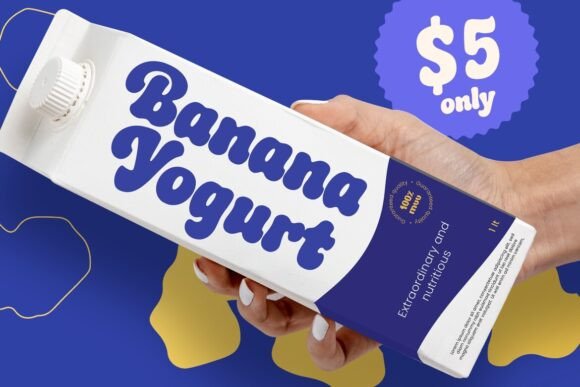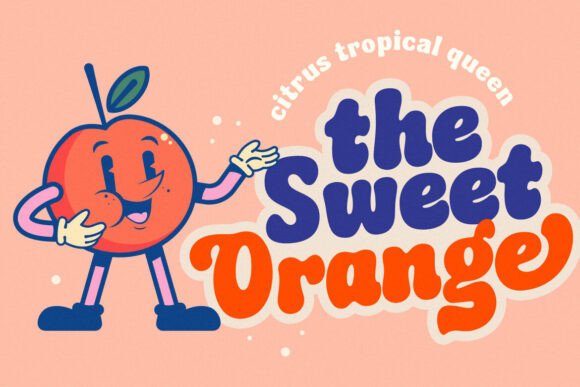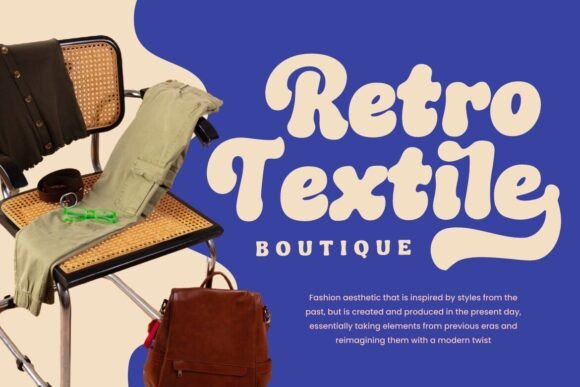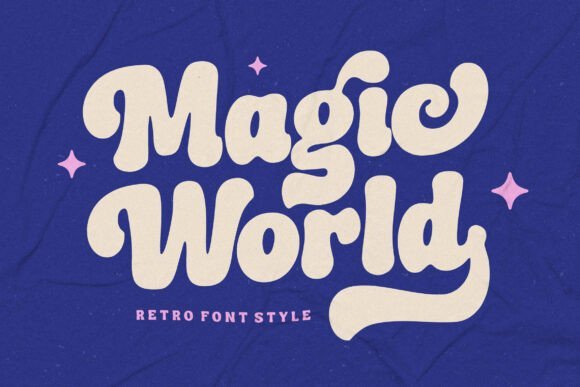
Introduction to Magic World Font
Magic World Font is a bold retro script font style with rounded touch.
Equipped with all complete characters ranging from uppercase letters, lowercase letters, numbers, punctuation marks and multi-lingual support, this font is ready to be used in any project Very suitable for logotype, Stickers, Packaging design, Cricut Project, headlines, brand identity, posters, magazines, books, YouTube, Instagram, websites, Canva, Corjl or any of your creative design projects.